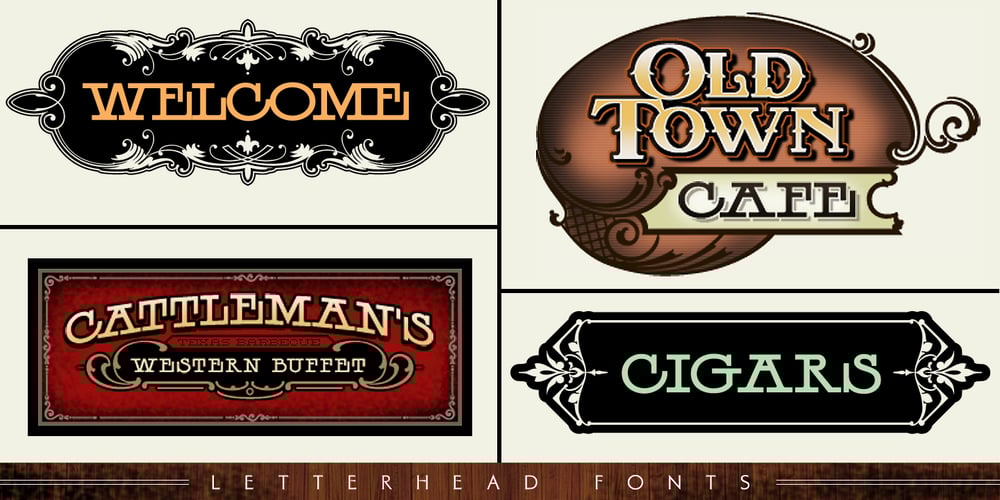
LHF Henderson Font Family was designed by Mike Jackson and published by Letterhead Fonts. LHF Henderson contains 1 styles and family package options. An excellent example of early 1900’s sign artistry. This Letterhead Fonts’ revised version of Mike Henderson’s bold font features all new spacing, kerning and improved characters. Includes 6 alternates.